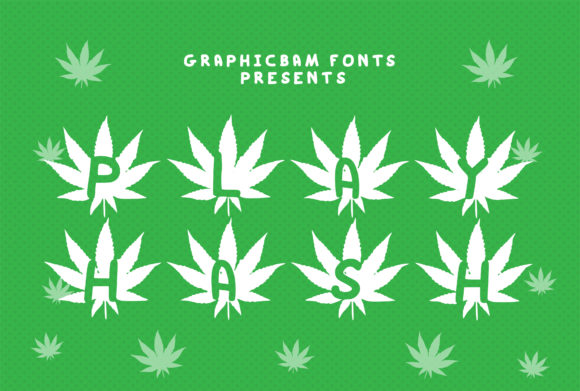
**Introducing Play Hash: The Ultimate Font for Creative Cannabis Enthusiasts**
Step into a world of endless creative possibilities with Play Hash, the captivating decorative font meticulously crafted by GraphicsBam Fonts. Designed with cannabis enthusiasts in mind, this font exudes a cool, edgy vibe that will elevate your creations to new heights.
**Embrace the Spirit of Cannabis Culture**
Play Hash embodies the very essence of cannabis culture, seamlessly intertwining aesthetics and functionality. Its intricate lines and vibrant energy evoke the spirit of this remarkable plant, inspiring you to unleash your creativity and express your passion.
**Elevate Your Designs with Unmatched Style**
Whether you're designing apparel, homeware, books, or branding materials, Play Hash empowers you to infuse your creations with a unique and unforgettable touch. Its versatility extends far beyond cannabis-related designs, making it an indispensable tool for any creative endeavor.
**Create Designs that Stand Out from the Crowd**
In a world saturated with generic fonts, Play Hash stands out as a beacon of originality. Its bold lines and captivating curves command attention, ensuring that your designs will leave a lasting impression on your audience.
**Unlock Your Creative Potential**
Play Hash is not just a font; it's a gateway to boundless creative expression. Its versatility empowers you to explore new frontiers of design, transforming your ideas into stunning realities. Let your imagination soar and embrace the limitless possibilities that await you with Play Hash.